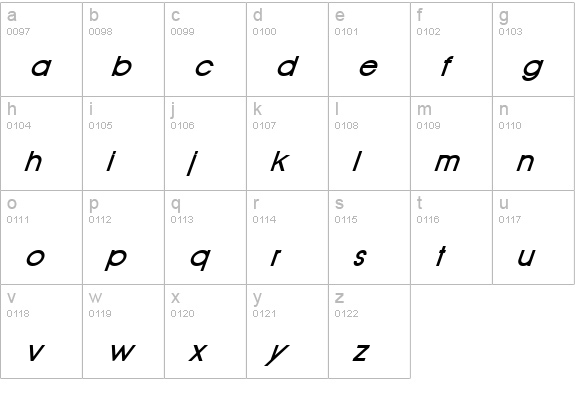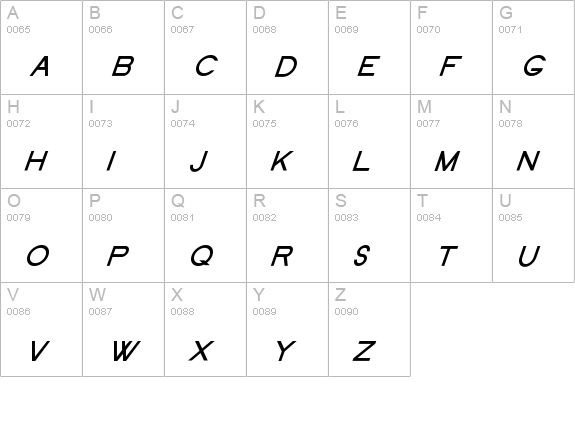
Old Republic BoldItalic Font Details
Introducing Old Republic BoldItalic font, a majestic and striking typeface that exudes a sense of timeless elegance and sophistication. Its bold and italicized design adds a touch of drama and flair to any text, making it perfect for headings, titles, and other prominent text elements. With its unique blend of classic and modern elements, Old Republic BoldItalic font is sure to make a statement and leave a lasting impression. The best part? Old Republic BoldItalic font is completely free to download at FontsMarket.com! Now you can elevate your designs with this stunning typeface without any cost. Don't miss out on this opportunity to enhance your projects with the beauty and grace of Old Republic BoldItalic font. Download it today and let your creativity shine.